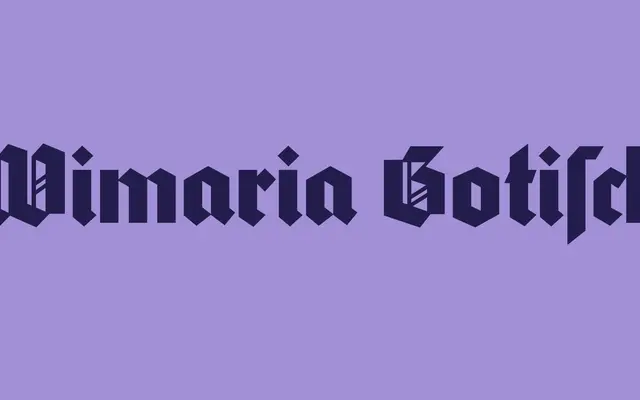
Wimaria Gotisch
FDI Type Foundry · Max Bittrof, Ralf Herrmann · 2025
A digitisation of a 1930s Bauer type foundry blackletter, extended with a full Western and Central European character set and optional OpenType swash capitals.
Originally published in the 1930s by the Bauer type foundry, the letterpress source material has been digitised by Max Bittrof and Ralf Herrmann with coverage expanded to include Win 1252/Mac Roman and Central European characters. The single style contains 462 glyphs in total, with decorative swash capitals accessible via the OpenType swash feature. Suited to logos and headlines where period blackletter texture is required.
A digitisation of a 1930s Bauer type foundry letterpress blackletter font, classified explicitly as blackletter by the foundry and suited to display use.